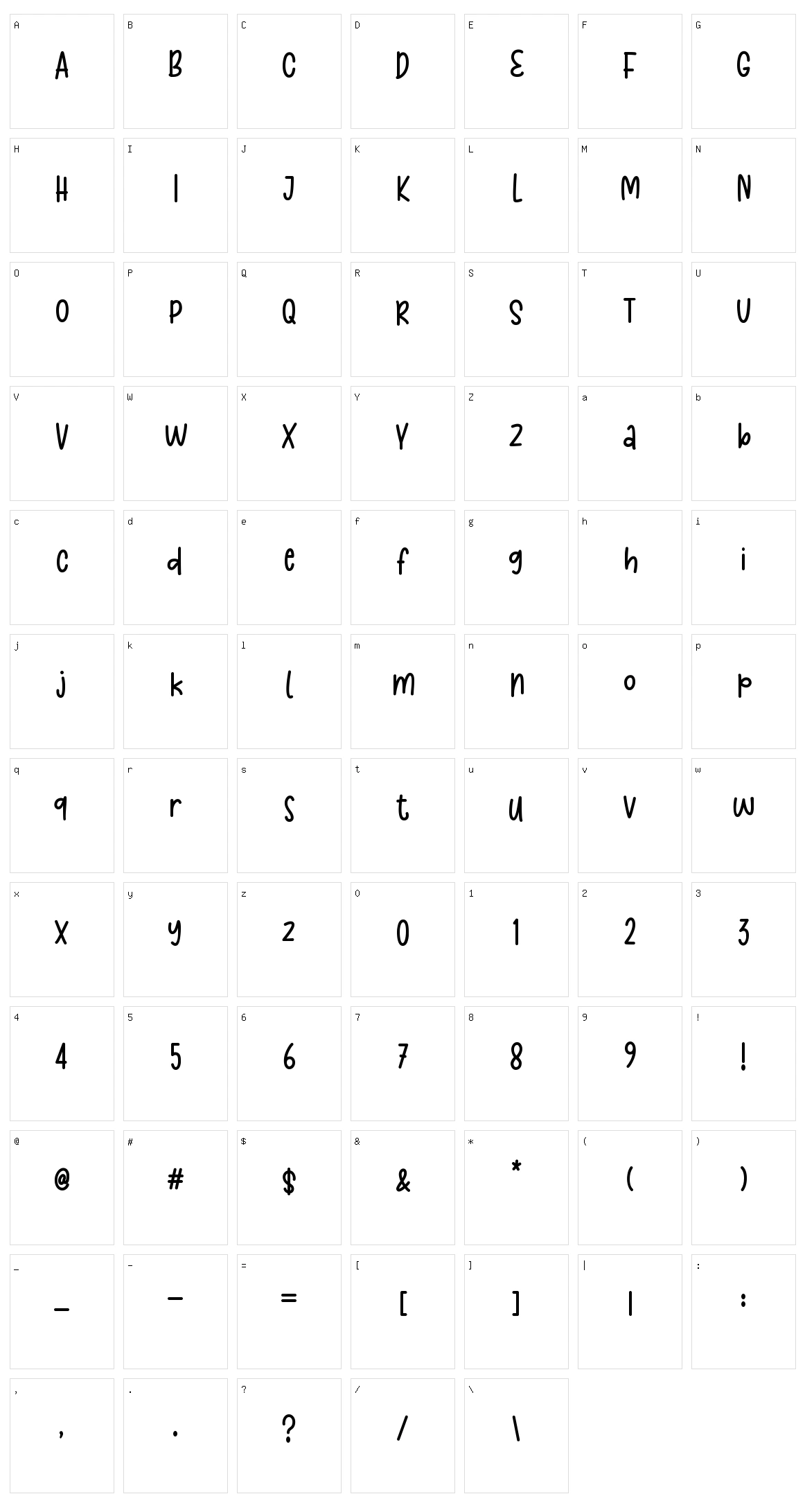
The free font Melisa Jasmine is carefully designed by Kotak Kuning Studio, showcasing a thoughtful balance of creativity and usability and falls under the Cartoon font style. When you download the ZIP file, it contains only 19.74 KB of font files, making it lightweight and quick to download. Please review the license details below to understand permitted usage and distribution rights. If license information is not available, we recommend using this font for personal projects only or contacting the author directly for commercial usage permissions.